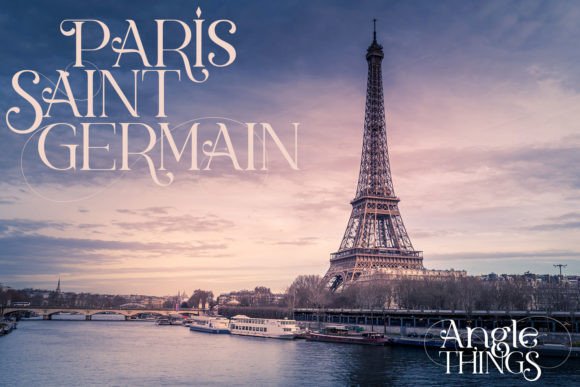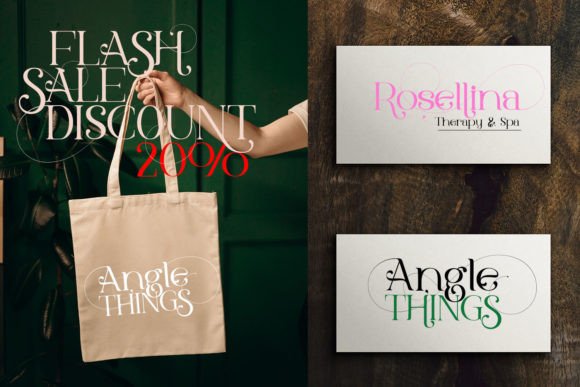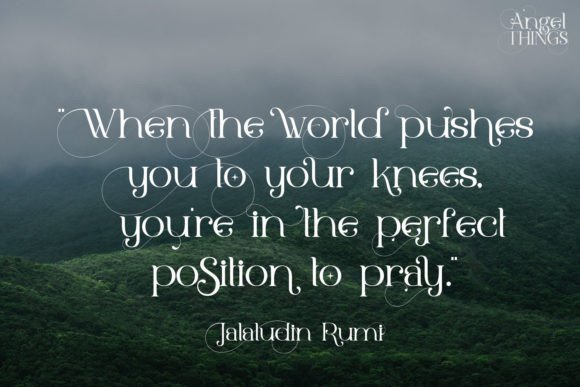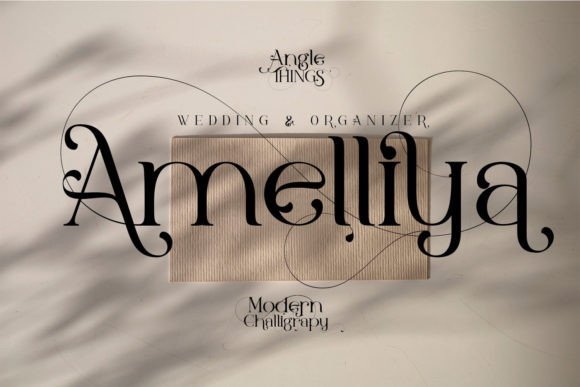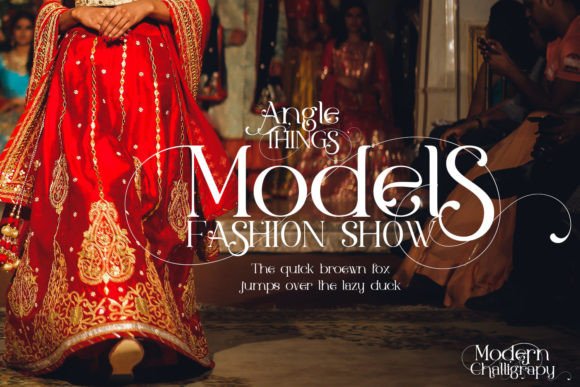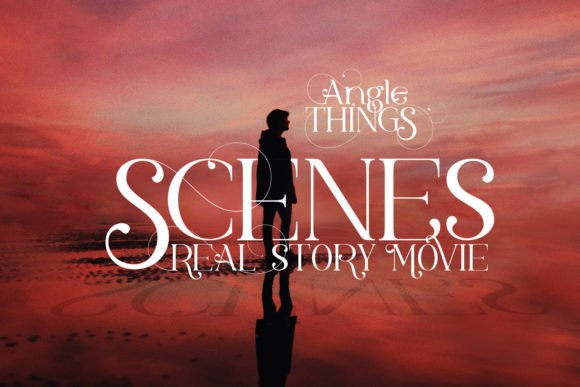
Introducing Angle Things Font: Elevate Your Designs with Elegance and Sophistication
In the world of typography, a font can make or break a design. For professionals and crafters seeking to add a touch of elegance and sophistication to their projects, Angle Things Font is an exceptional choice. This beautiful and elegant serif font is designed to meet the demands of high-end projects, making it perfect for titles, movies, magazines, books, invitation prints, and more.
What Makes Angle Things Font Stand Out?
Angle Things Font boasts a range of features that set it apart from other fonts. Here are a few reasons why designers and crafters love this font:
- Elegant Serif Design: The font’s serif design exudes elegance and sophistication, making it perfect for projects that require a touch of refinement.
- PUA Encoding: Angle Things Font is PUA (Private Use Area) encoded, which means you can access all the glyphs and swashes with ease. This feature allows for greater flexibility and creativity in your designs.
- Versatility: This font is suitable for a wide range of projects, from titles and movies to magazines, books, and invitation prints.
Perfect for Professional Projects
Angle Things Font is designed with professionals in mind. Its elegant serif design and PUA encoding make it an excellent choice for:
- Movie Titles: Add a touch of sophistication to your movie titles with Angle Things Font.
- Magazine and Book Covers: Elevate your magazine and book covers with this elegant font.
- Invitation Prints: Make your invitation prints stand out with the refined and sophisticated look of Angle Things Font.
Why Choose Angle Things Font?
With so many fonts available, why choose Angle Things Font? Here are a few reasons:
- Unique Design: Angle Things Font offers a unique and elegant serif design that will set your projects apart.
- Ease of Use: The font’s PUA encoding makes it easy to access all the glyphs and swashes, allowing you to focus on your design rather than struggling with the font.
- High-Quality: This font is designed to deliver high-quality results, making it perfect for professional projects.
Tips for Using Angle Things Font
To get the most out of Angle Things Font, here are a few tips:
- Experiment with Swashes: Take advantage of the font’s PUA encoding to experiment with different swashes and glyphs.
- Pair with Other Fonts: Angle Things Font works well when paired with other fonts. Experiment with different combinations to find the perfect look for your project.
- Adjust Font Size: Don’t be afraid to adjust the font size to achieve the desired effect.
Angle Things Font is an exceptional choice for designers and crafters seeking to add a touch of elegance and sophistication to their projects. With its elegant serif design, PUA encoding, and versatility, this font is perfect for professional projects. Whether you’re working on a movie title, magazine cover, or invitation print, Angle Things Font is sure to deliver high-quality results.